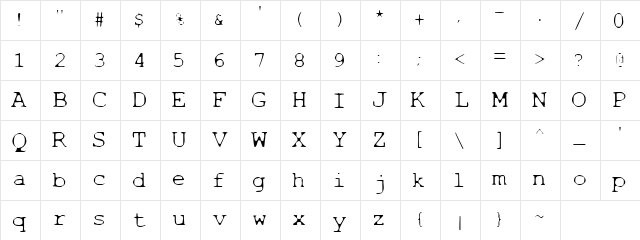
Thinbaby Regular
Design Context for Thinbaby Typeface
Thinbaby offers clean, dependable letterforms without strong stylistic allegiance, making it a practical choice for designers who need flexibility. Its slender proportions lend an understated elegance to any composition.
Pro Tip: Pair Thinbaby with a font of contrasting weight or personality to build a more expressive typographic hierarchy.